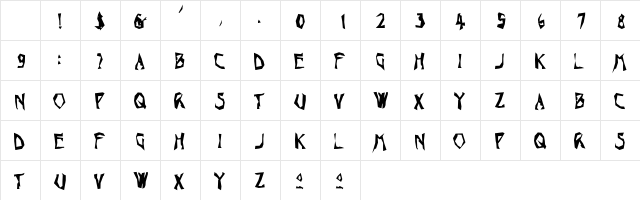
Complete Toucan Grunge glyph index. Displaying only characters natively supported by Toucan Grunge font.
Toucan embraces imperfection - its rough, textured character adds raw authenticity to designs that want to feel lived-in and unconventional.
Pro Tip: Use Toucan at larger sizes where the texture and irregularity of each letterform can be clearly seen - it loses its character at small sizes.